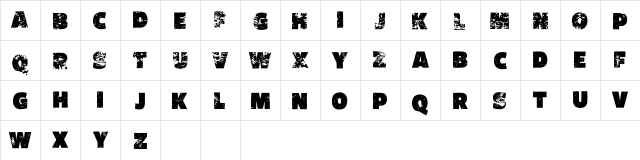
Vtks HyperBoldi Regular
| Foundry | douglas vitkauskas |
| Designer | douglas vitkauskas |
Design Context for Vtks HyperBoldi Typeface
Vtks HyperBoldi is a composed and adaptable typeface that performs quietly and consistently across a wide range of design contexts. The heavy weight commands attention and anchors typographic hierarchies.